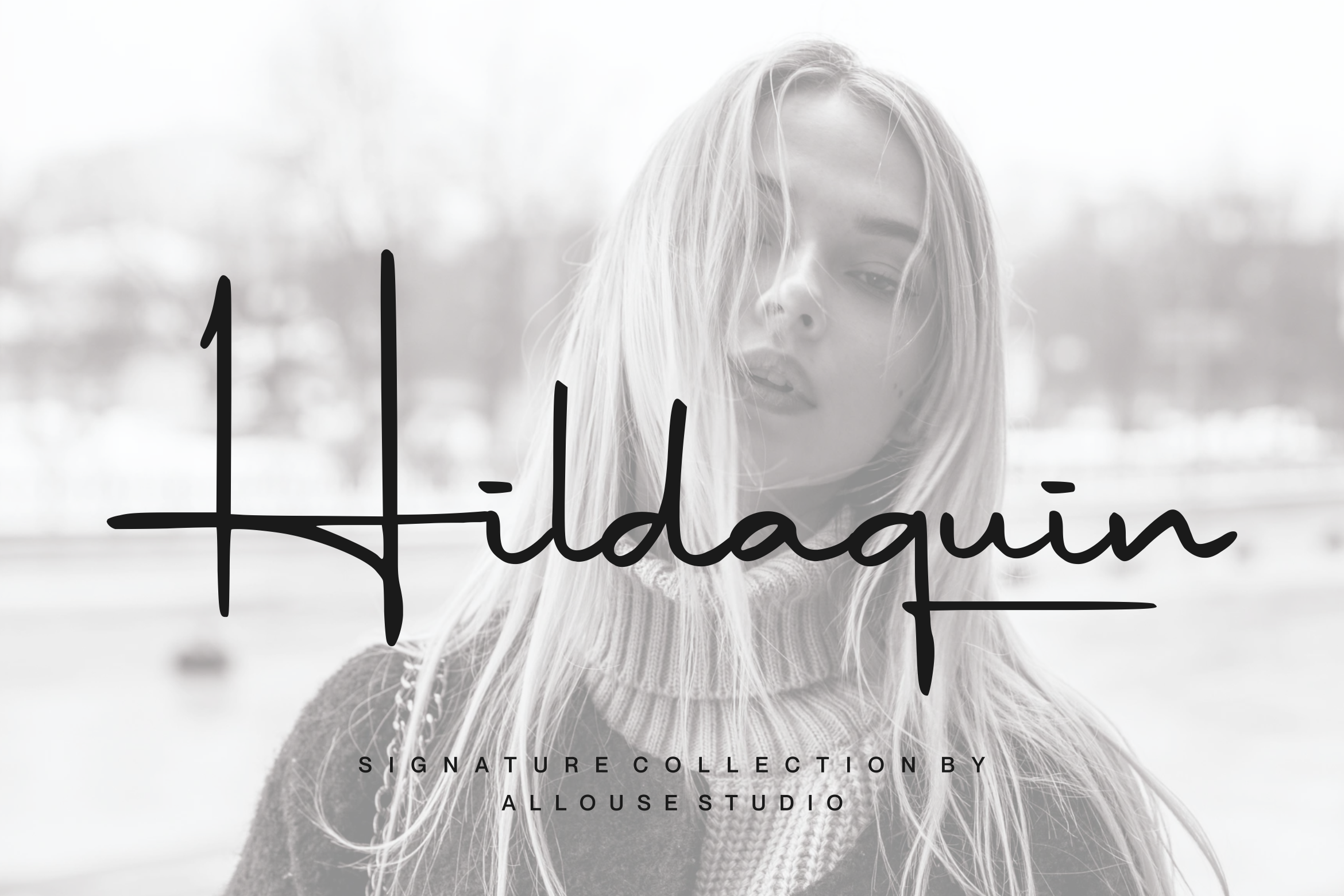
Introducing by Allouse.Studio
Proudly Present, Hildaquin
Hildaquin is a Signature Collection Font.
Hildaquin is perfect for product packaging, branding project, megazine, social media, wedding, or just used to express words above the background.